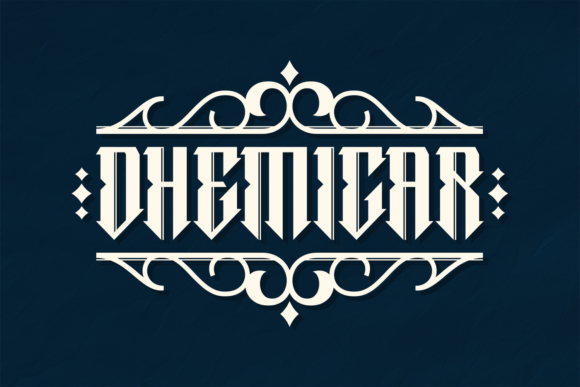
Dhemicar Font: A Bold and Ornate Blackletter Typeface
In the world of typography, fonts play a crucial role in conveying messages, expressing emotions, and creating a lasting impression. Among the numerous font styles available, blackletter fonts have gained significant popularity for their unique, bold, and ornate designs. One such font that has caught the attention of designers and typography enthusiasts is the Dhemicar font. This article will delve into the features, characteristics, and uses of the Dhemicar font, exploring its potential to elevate branding, designs, and artistic creations.
Dhemicar Font: A Bold and Ornate Blackletter Typeface
Dhemicar is a bold and ornamental blackletter font that boasts a distinctively sharp, angular design. Its tall, condensed letterforms and decorative flourishes make it perfect for creating striking logos, labels, tattoo designs, or any project that requires a touch of gothic authority and vintage elegance. The font’s design fuses medieval edge with a modern, monolithic feel, making it ideal for standout branding.
Key Features of Dhemicar Font
- Bold and Ornate Design: Dhemicar font features a bold and ornate design that commands attention and exudes confidence.
- Sharp and Angular Letterforms: The font’s sharp and angular letterforms give it a unique, edgy look that sets it apart from other blackletter fonts.
- Tall and Condensed Letterforms: The tall and condensed letterforms of Dhemicar font make it perfect for creating striking headlines, logos, and titles.
- Decorative Flourishes: The font’s decorative flourishes add an extra touch of elegance and sophistication, making it suitable for high-end branding and designs.
- Medieval Edge with Modern Feel: Dhemicar font seamlessly blends medieval edge with a modern, monolithic feel, making it versatile and contemporary.
Uses of Dhemicar Font
Dhemicar font is a versatile typeface that can be used in various design projects, including:
- Logo Design: The font’s bold and ornate design makes it perfect for creating striking logos that convey strength and authority.
- Label Design: Dhemicar font is suitable for label design, adding a touch of gothic elegance and sophistication to product packaging.
- Tattoo Design: The font’s unique and edgy design makes it a popular choice for tattoo designs, adding a touch of boldness and confidence.
- Branding: Dhemicar font is ideal for branding projects, providing a distinctive and memorable visual identity.
Benefits of Using Dhemicar Font
Using Dhemicar font in design projects offers several benefits, including:
- Unique Visual Identity: The font’s bold and ornate design creates a unique visual identity that sets designs apart from others.
- Emotional Connection: Dhemicar font evokes emotions of strength, confidence, and elegance, creating a lasting impression on audiences.
- Versatility: The font’s versatility makes it suitable for various design projects, from logos and labels to tattoo designs and branding.
- Timeless Appeal: Dhemicar font’s classic design ensures a timeless appeal, making it a valuable asset for designers and brands.
Tips for Using Dhemicar Font
To get the most out of Dhemicar font, consider the following tips:
- Use it Sparingly: Use Dhemicar font sparingly to create a lasting impression, as overusing it may dilute its impact.
- Pair it with Simple Fonts: Pair Dhemicar font with simple fonts to create a striking contrast and add visual interest.
- Experiment with Colors: Experiment with different colors to find the perfect match for Dhemicar font, enhancing its visual appeal.
- Consider Legibility: Ensure legibility by using Dhemicar font in contexts where it’s easy to read and understand.
In conclusion, Dhemicar font is a bold and ornamental blackletter typeface that offers a unique blend of medieval edge and modern feel. Its sharp, angular design, tall and condensed letterforms, and decorative flourishes make it perfect for creating striking logos, labels, tattoo designs, and branding projects. By understanding the features, characteristics, and uses of Dhemicar font, designers and brands can harness its potential to elevate their designs and create a lasting impression.